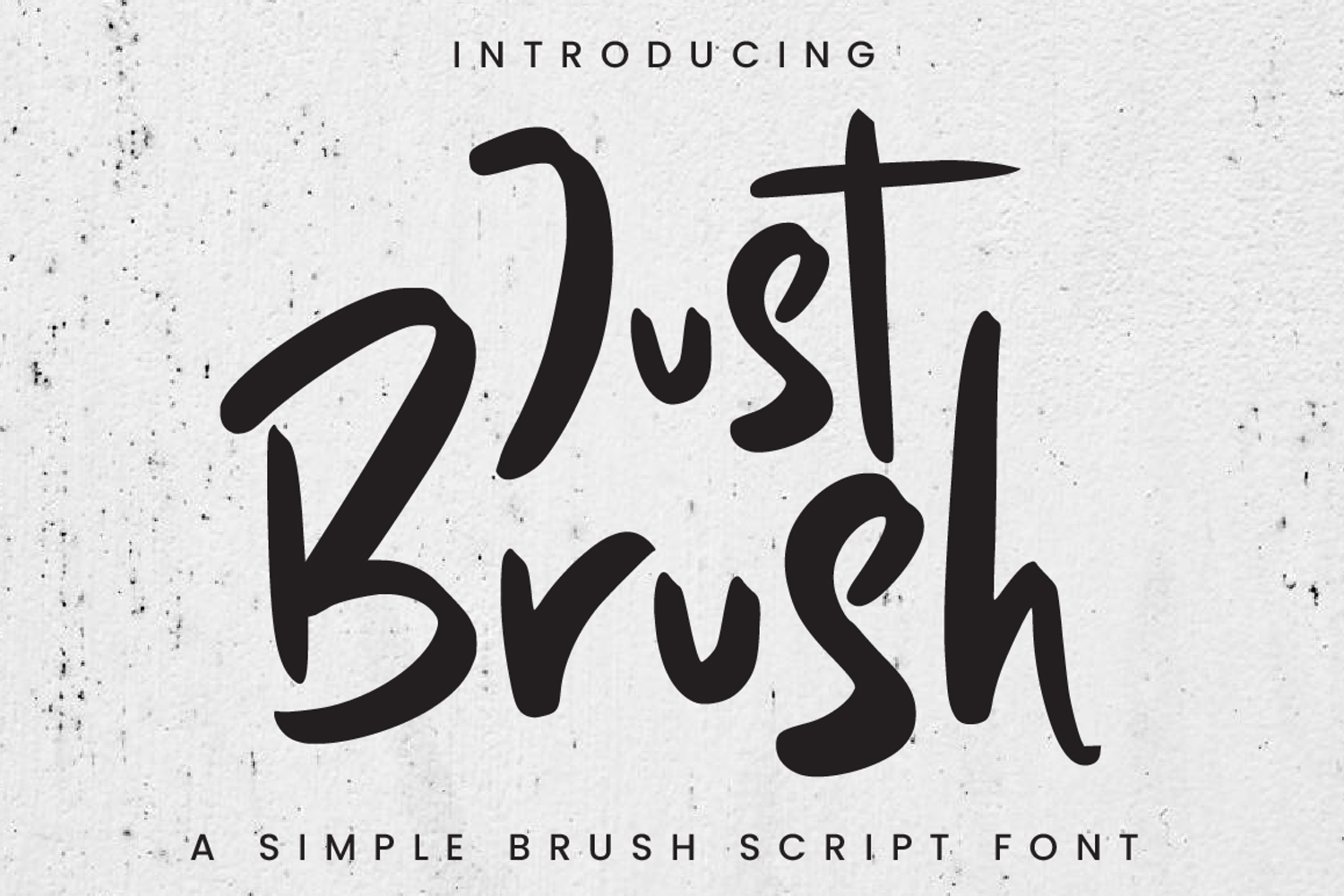
Just Brush
Just Brush Italic
Just Brush Regular
Just Brush is a bold and effortless brush font with a natural handwritten flow. Each stroke is full of personality bold, confident, and perfectly imperfect. Just Brush is your go-to font for designs that need an authentic handmade touch. Perfect for logos, branding, packaging, social media posts, or DIY projects that crave a creative. And yes Just Brush also comes in an elegant italic style, giving you even more freedom to express your creativity
Just Brush